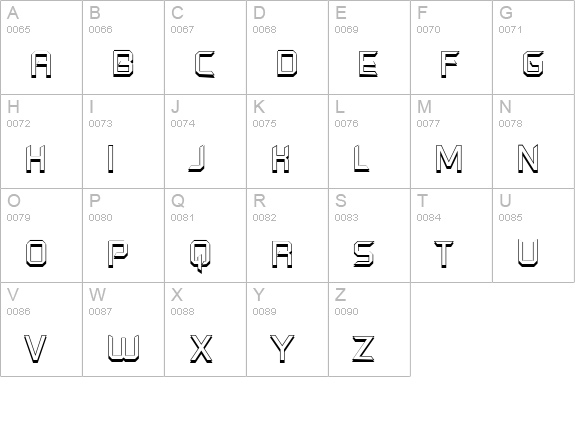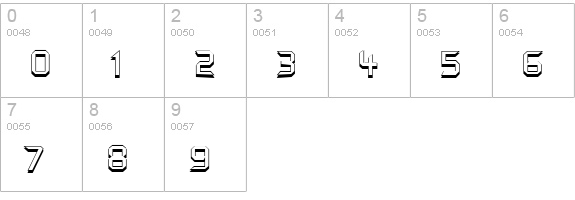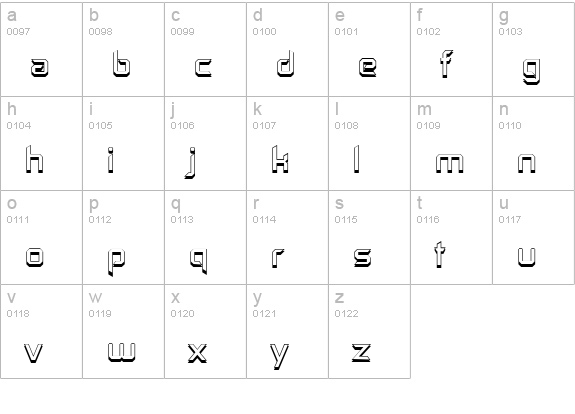
Control Freak Offset Font Details
Control Freak Offset font is a versatile and modern typeface that combines sleek lines with a touch of edgy flair. Perfect for making a bold statement in your designs, this font exudes confidence and uniqueness. The offset detailing adds a dynamic and eye-catching element that sets it apart from traditional fonts. What makes Control Freak Offset font even more appealing is that it is available for free download at FontsMarket.com. Whether you're working on branding, posters, or web design, this font will add a distinctive and contemporary touch to your projects. Embrace your inner control freak and elevate your designs with this versatile and striking font.